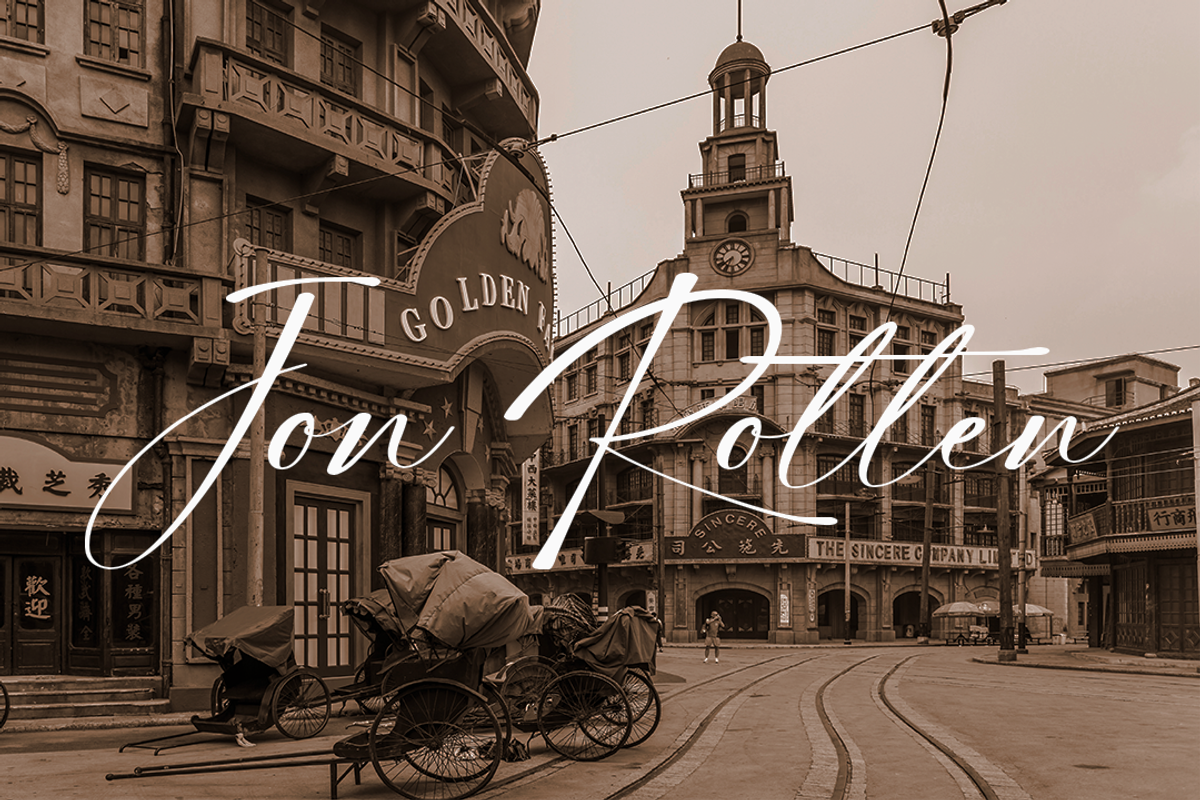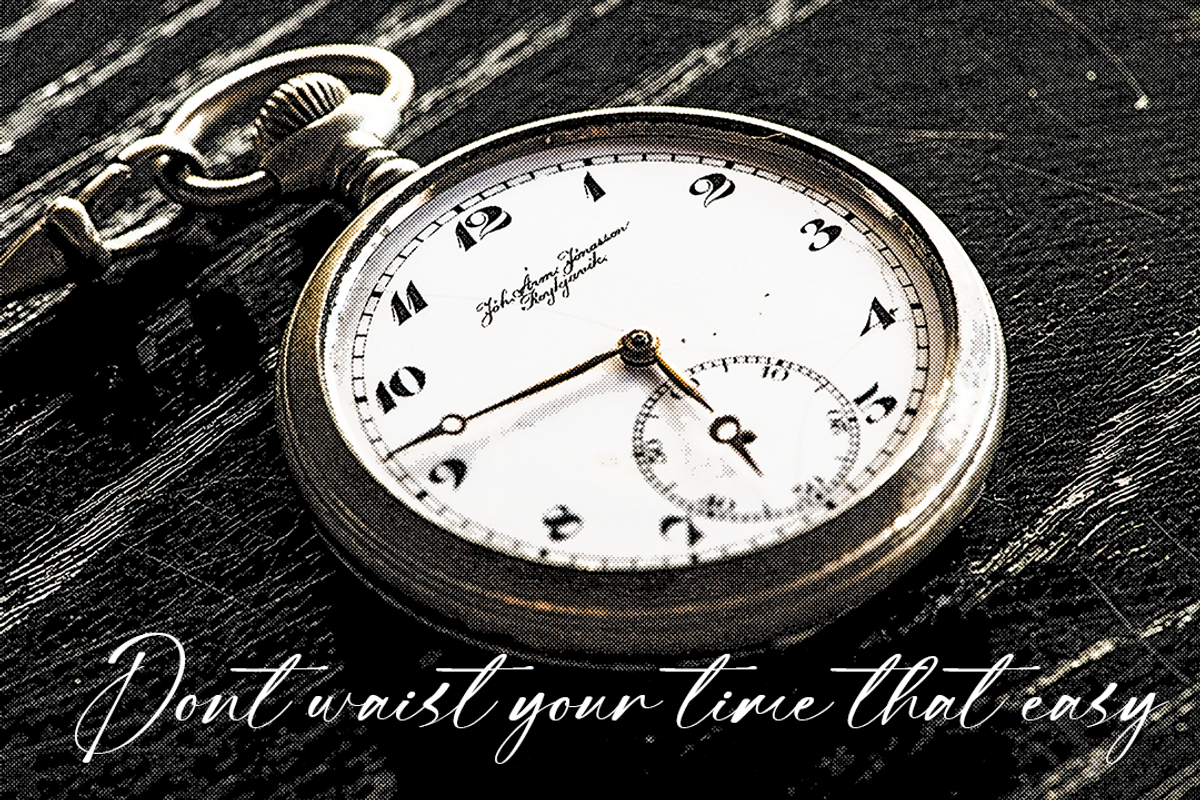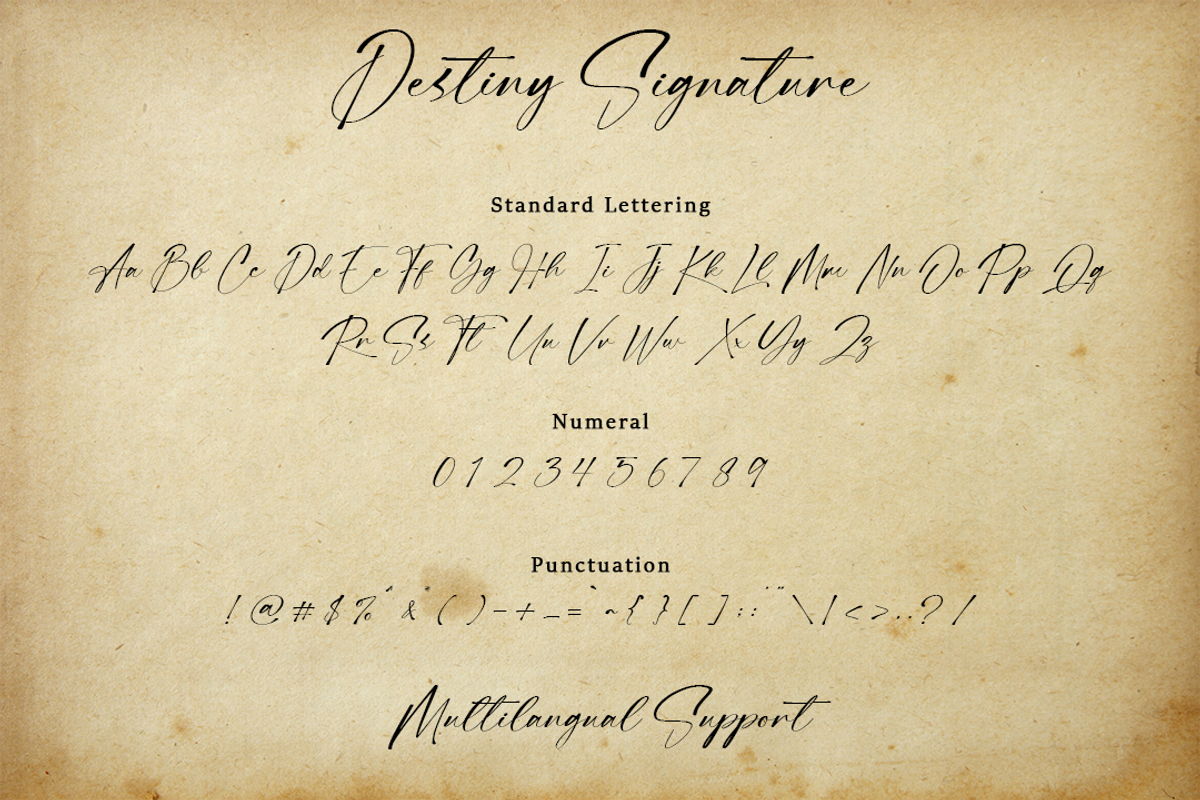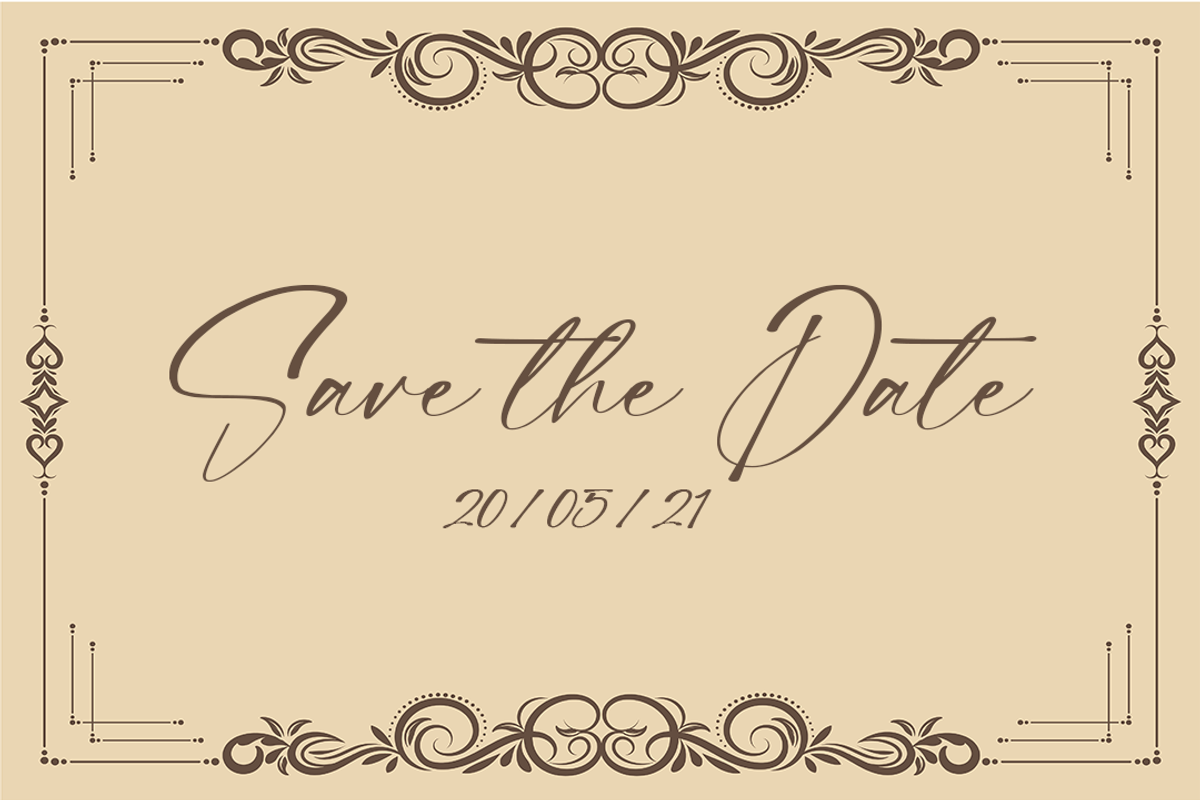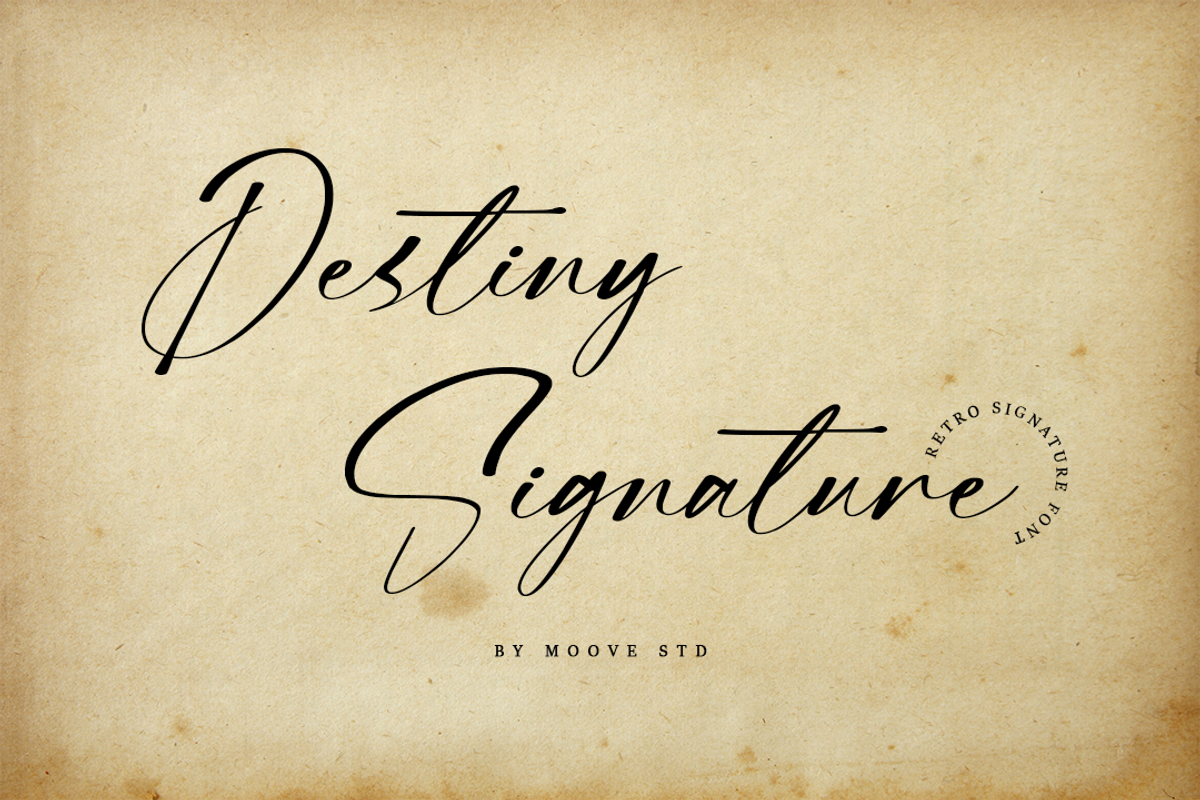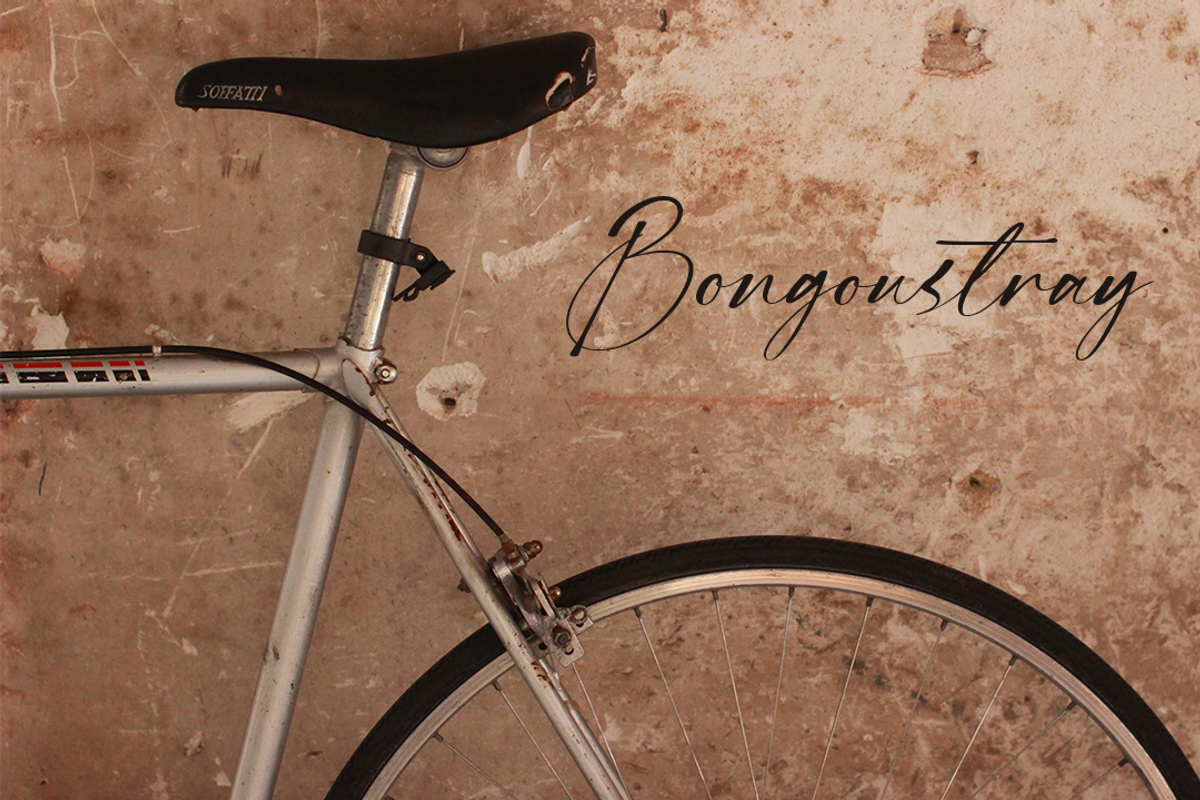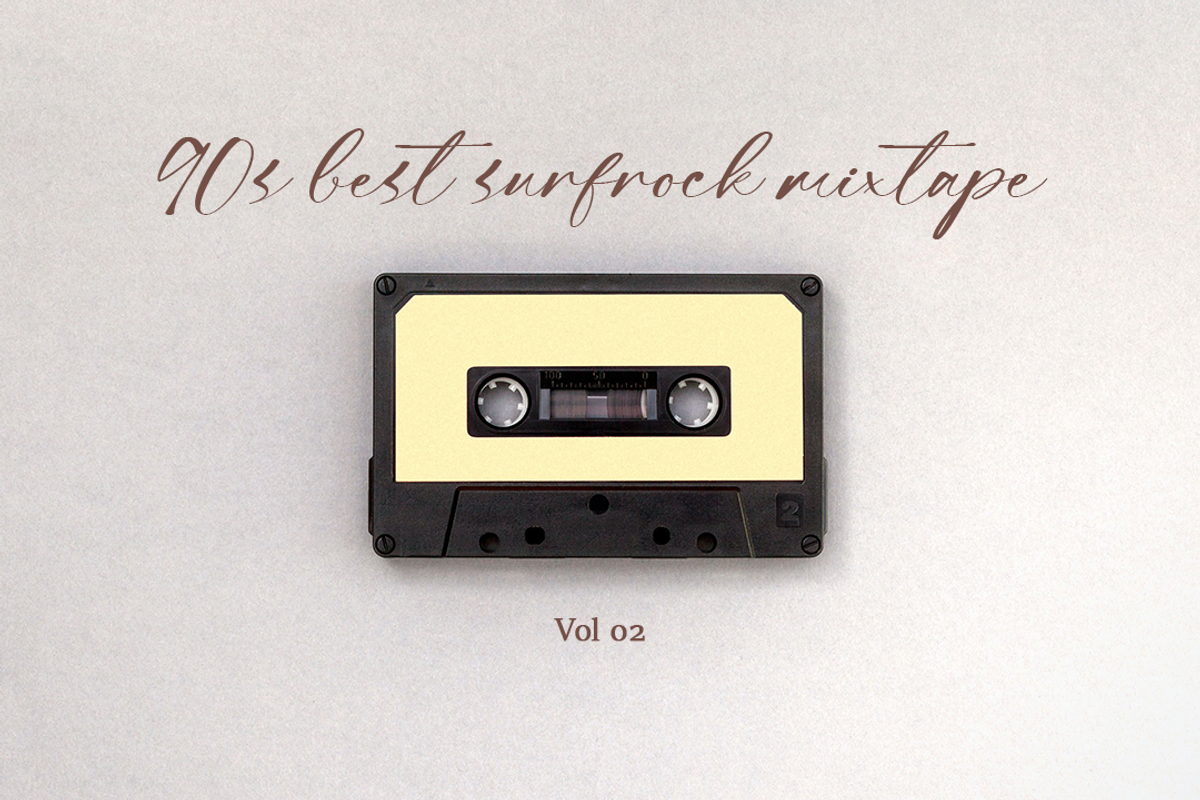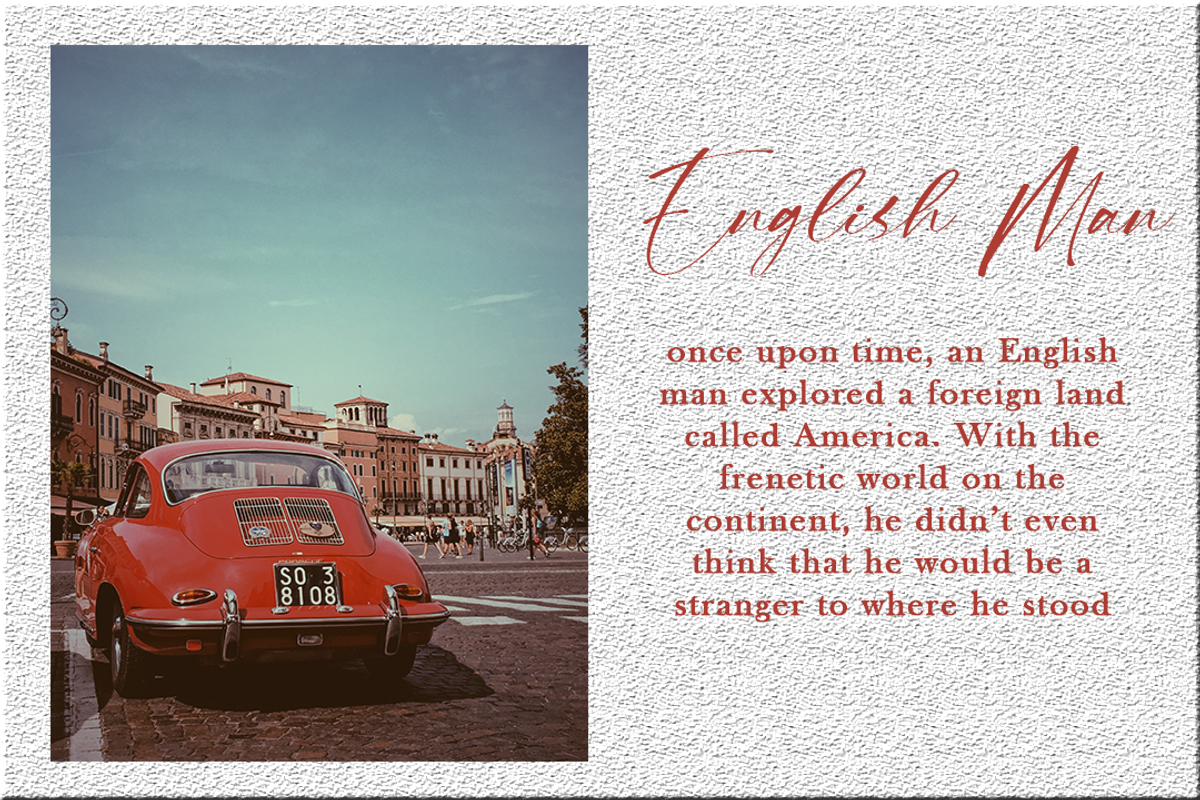
Destiny Signature | Retro Signature
Hi! Introducing my newest font called Destiny Signature.
Destiny Signature is a delicate and stylish script font, that exudes elegance and class. This font was particularly crafted for those who need a beautiful and refreshing look to their designs.